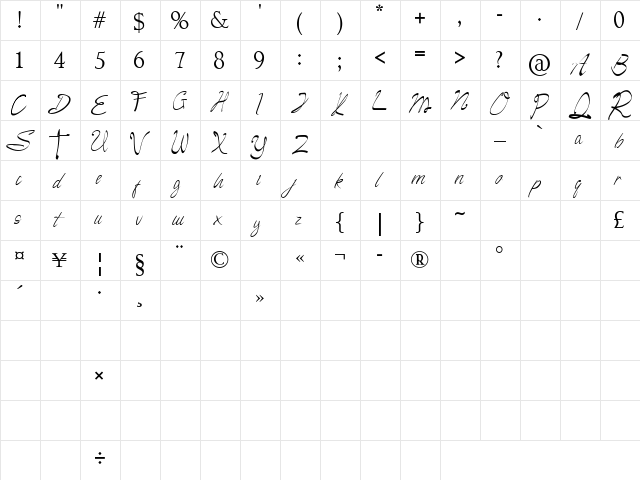
Camella Beauty Script Regular
| Designer | Gigih Wiryana |
Design Context for Camella Beauty Script Typeface
Camella Beauty Script brings a calligraphic fluidity to the page — its connecting strokes and expressive curves give it an unmistakably human quality.
Font Pairing: Combine Camella Beauty Script with a simple geometric sans for maximum contrast — the tension between flowing curves and clean structure is a classic typographic pairing.
Pro Tip: Use Camella Beauty Script for short runs of text — names, titles, or taglines. Extended body copy in script faces tires the eye quickly.